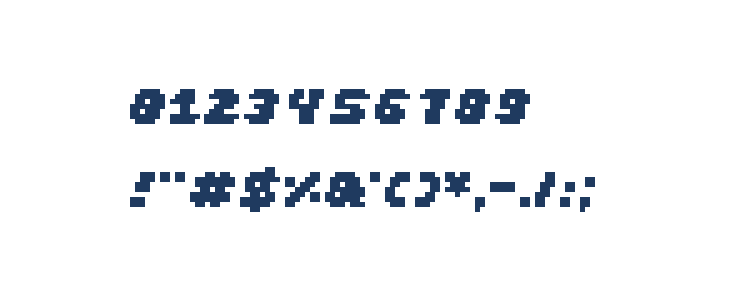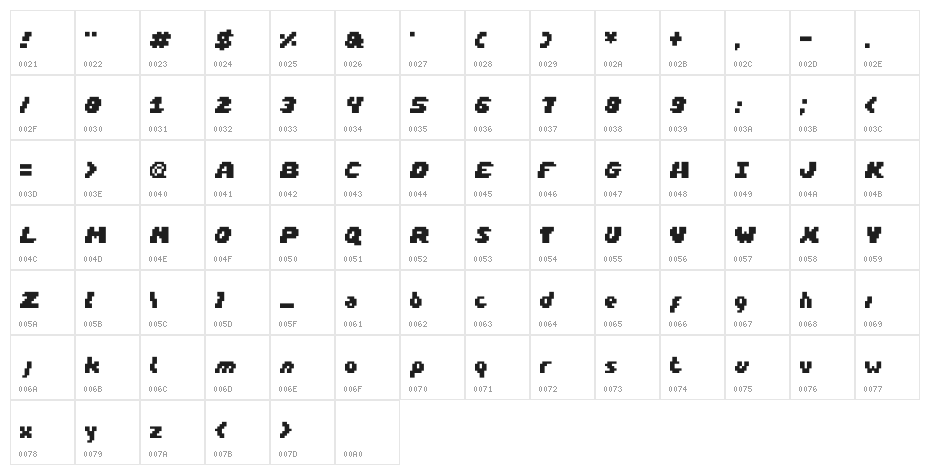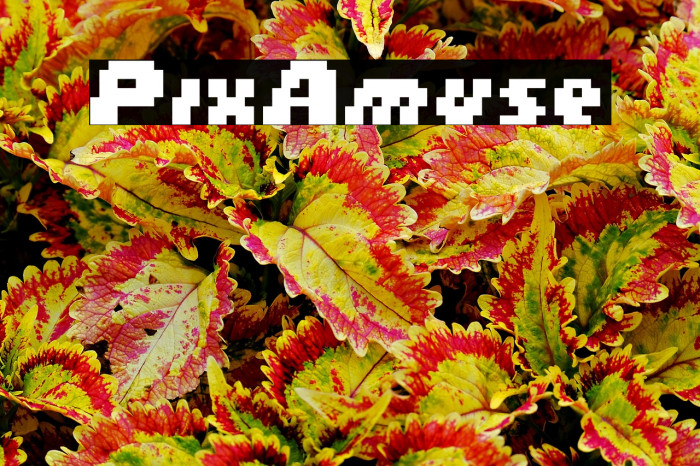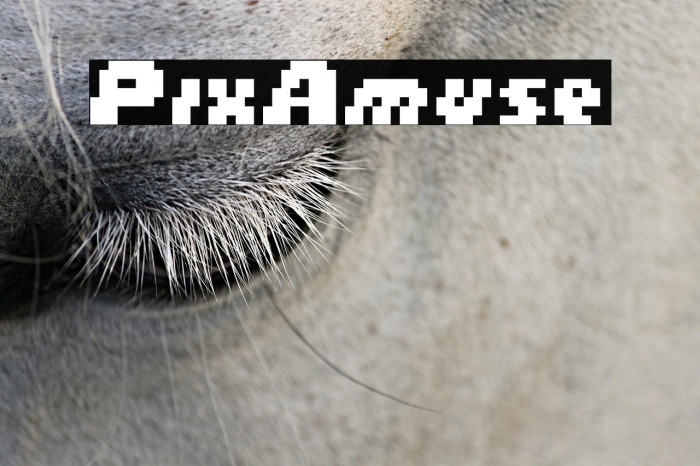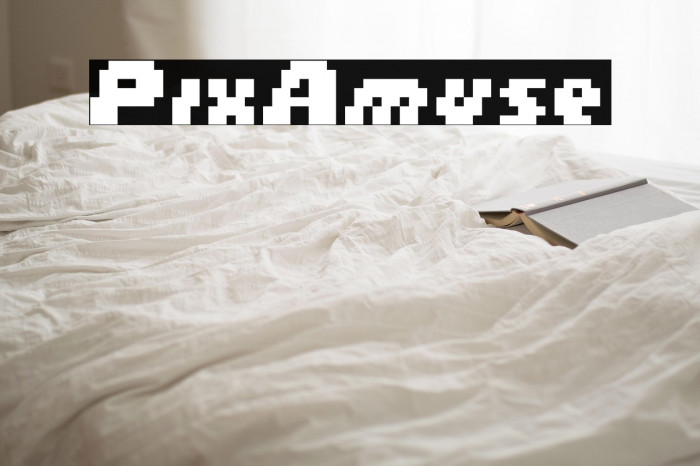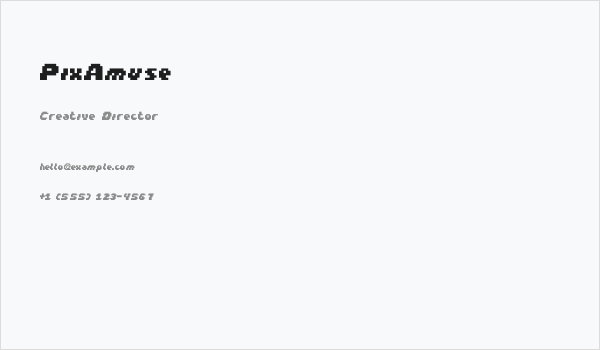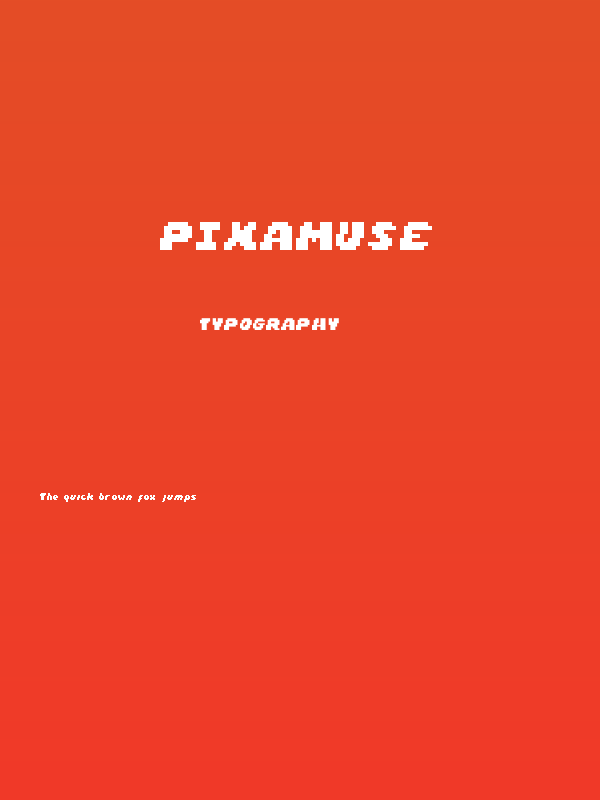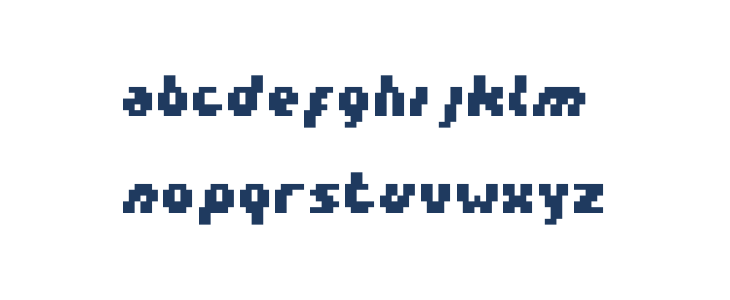
PixAmuse Font
PixAmuse Description
This font features a bold, pixelated style reminiscent of early digital and arcade aesthetics. Each character is constructed with a blocky, grid-like appearance, giving it a distinctly retro and playful vibe. The uppercase and lowercase letters maintain a consistent pixelated form, while numbers and special characters follow the same design principle, ensuring uniformity across the typeface. The font's geometric and modular nature makes it ideal for projects that aim to evoke nostalgia or a digital theme. Its simplicity and clarity ensure readability despite the unconventional design.
| Overall Style | Retro, Digital |
| Proposed Projects | Ideal for video game graphics, retro-themed posters, digital art projects, and any design requiring a nostalgic or playful touch. |